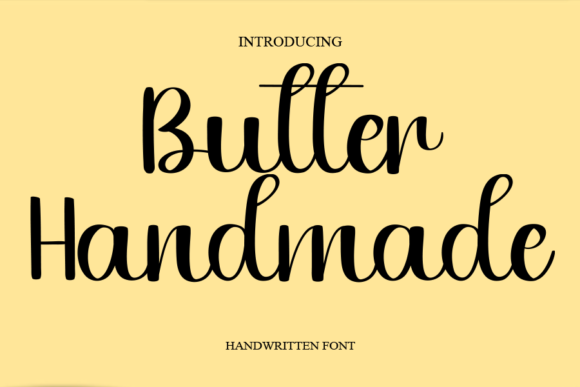
Unleash your creativity with Butter Handmade Font, the epitome of elegance and charm. This meticulously crafted script font, a brainchild of janurmasahmad, is designed to transform your words into captivating works of art.
Immerse yourself in the world of beautiful typography with Butter Handmade Font. Its delicate strokes and flowing curves add a touch of sophistication to any project, whether you're creating eye-catching designs for social media, personalizing handmade cards, or crafting unique invitations.
With Butter Handmade Font, the possibilities are endless. Let your imagination run wild as you explore the boundless realm of creativity. Turn your designs into stunning masterpieces that resonate with grace and charm.
But what truly sets Butter Handmade Font apart is its versatility. It seamlessly adapts to a wide range of styles and themes, from vintage and classic to modern and contemporary. Whether you're designing a wedding invitation, a brand logo, or a social media post, Butter Handmade Font effortlessly elevates your creations.
So, embark on a design adventure with Butter Handmade Font today. Experience the joy of creating stunning visuals that captivate and inspire. Let your artistic vision shine through as you transform ordinary words into extraordinary works of art.